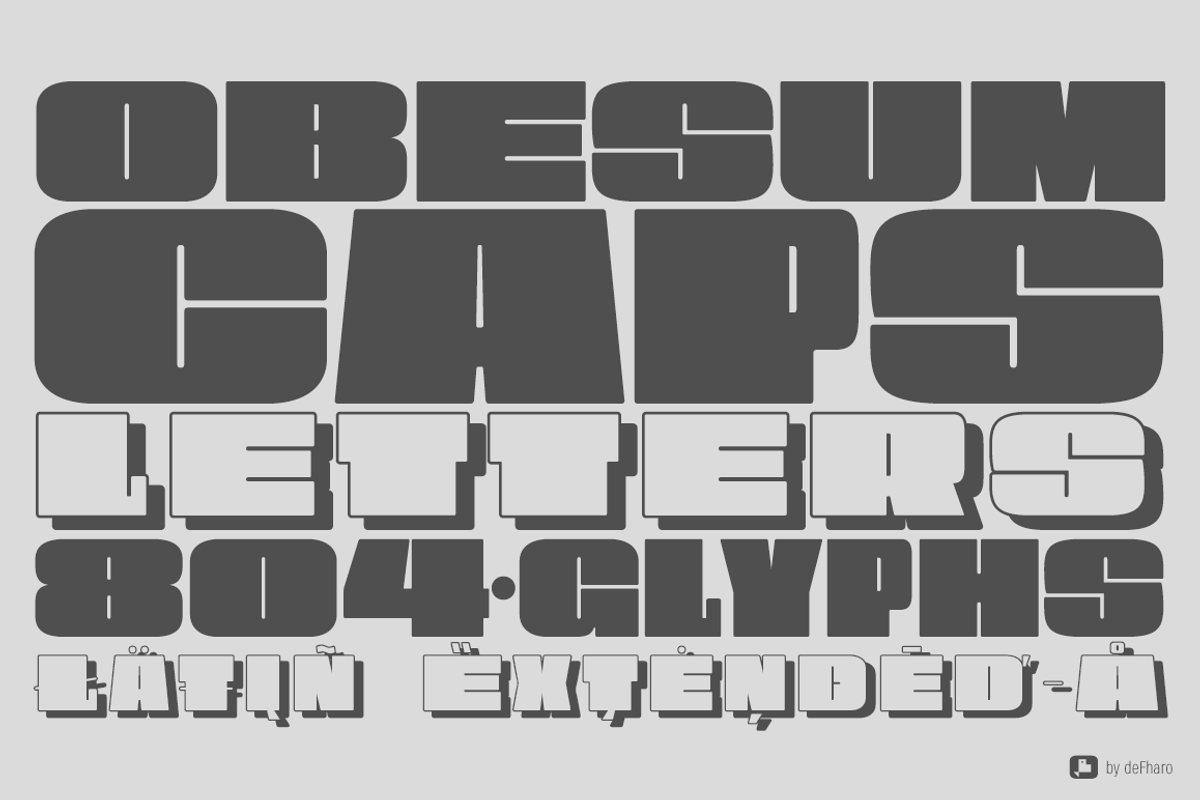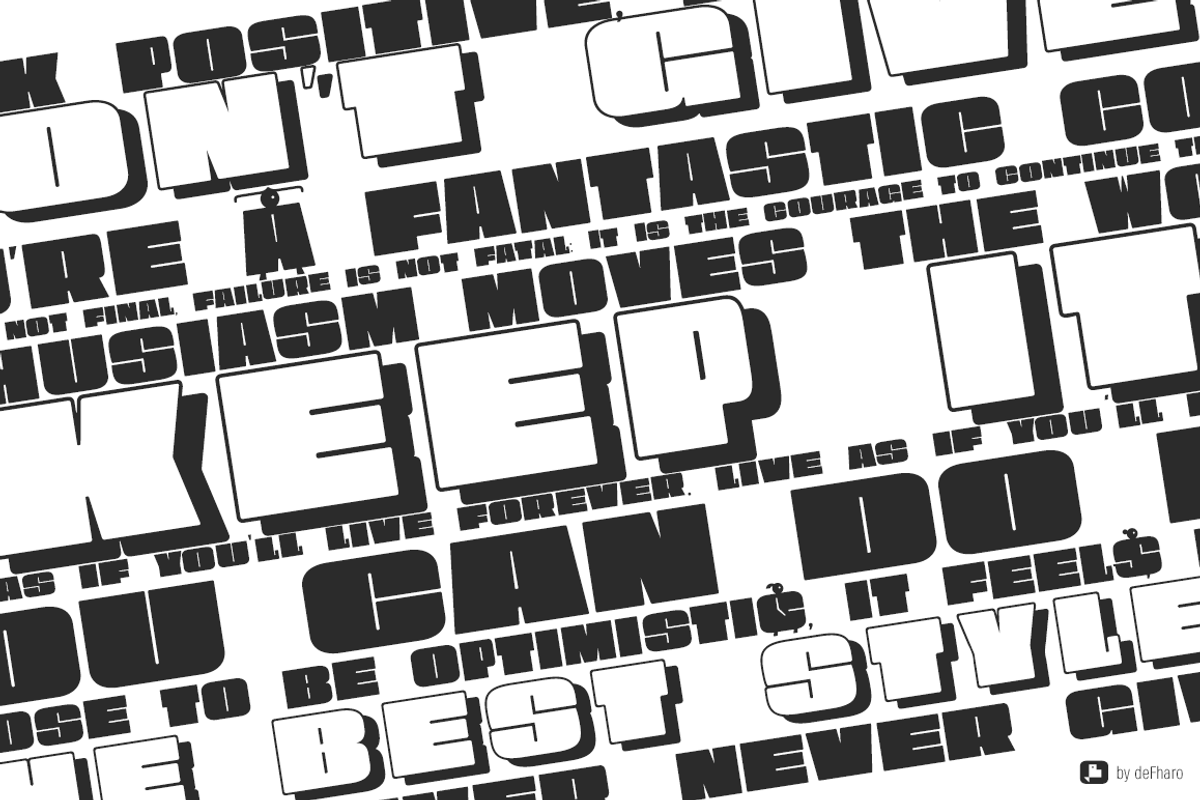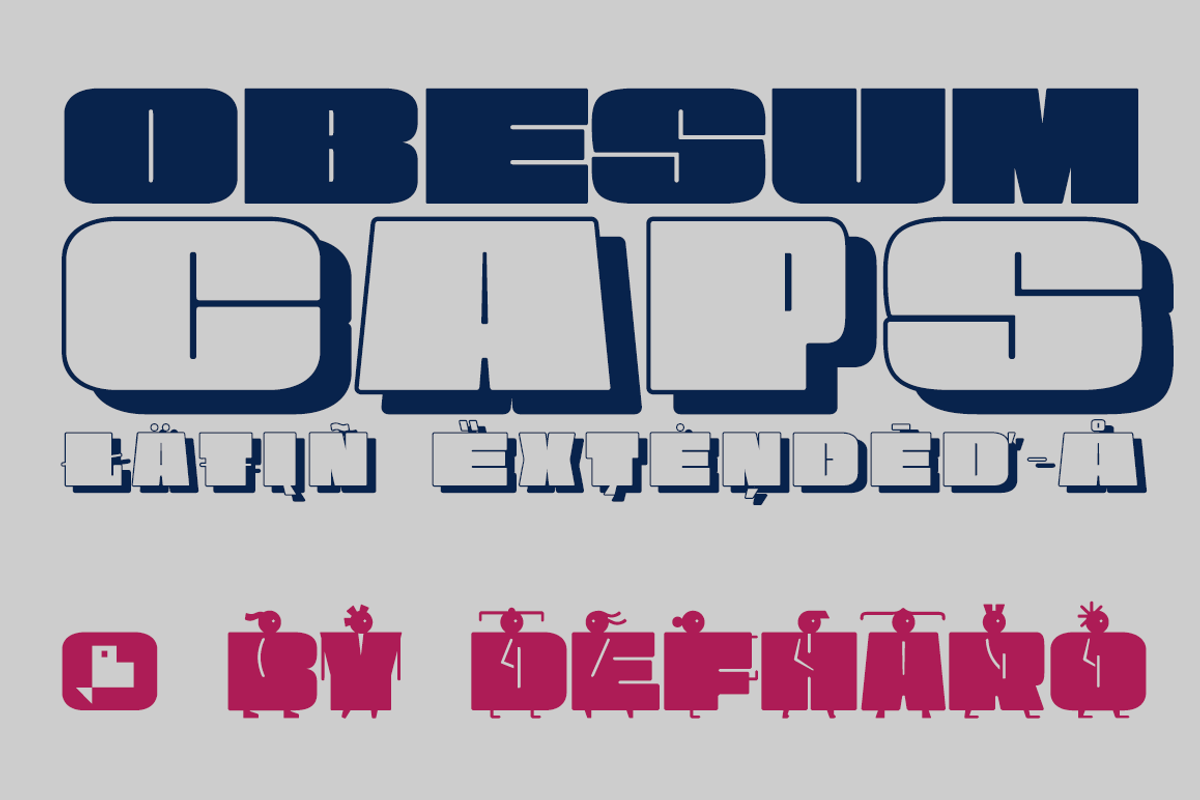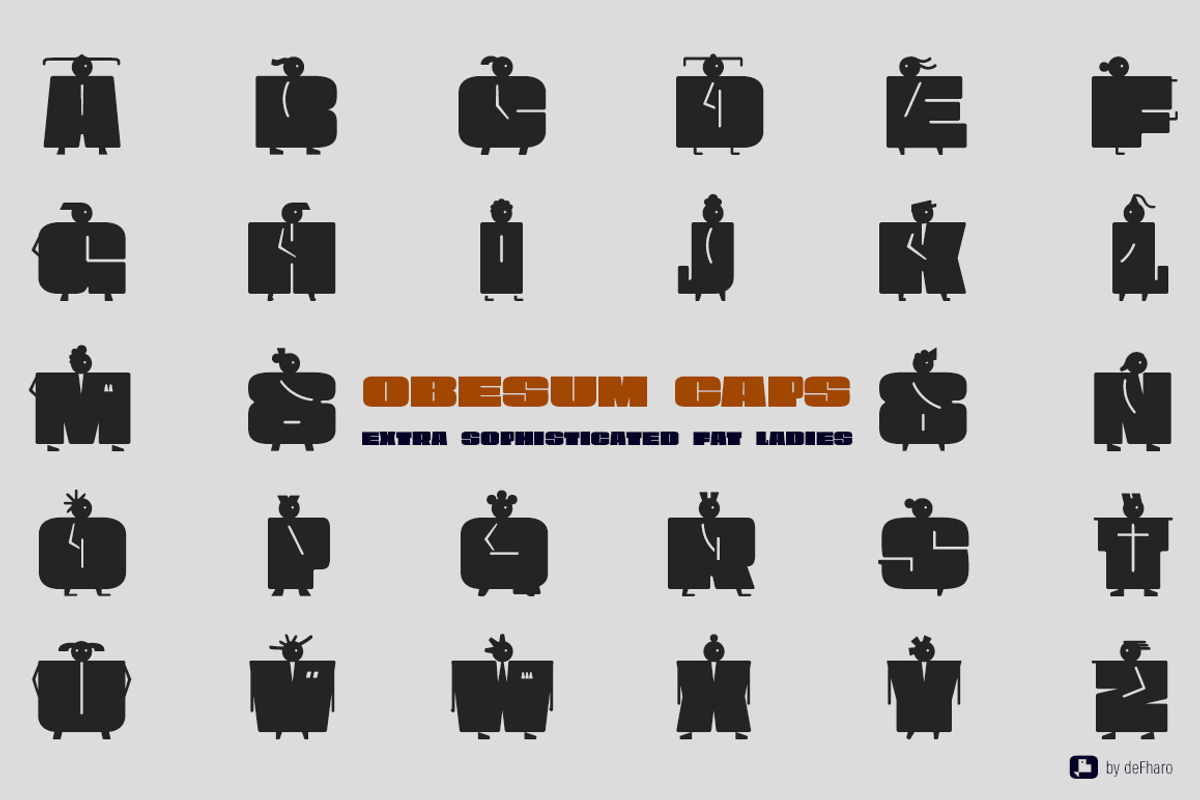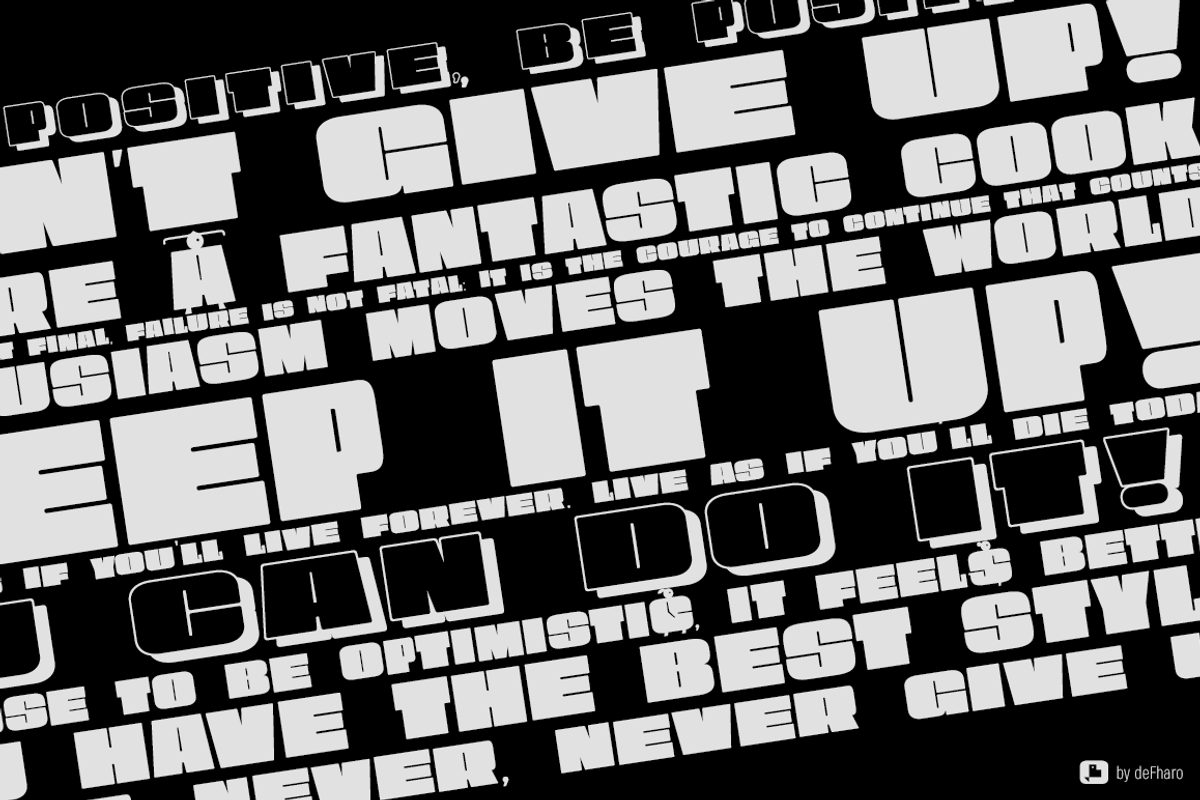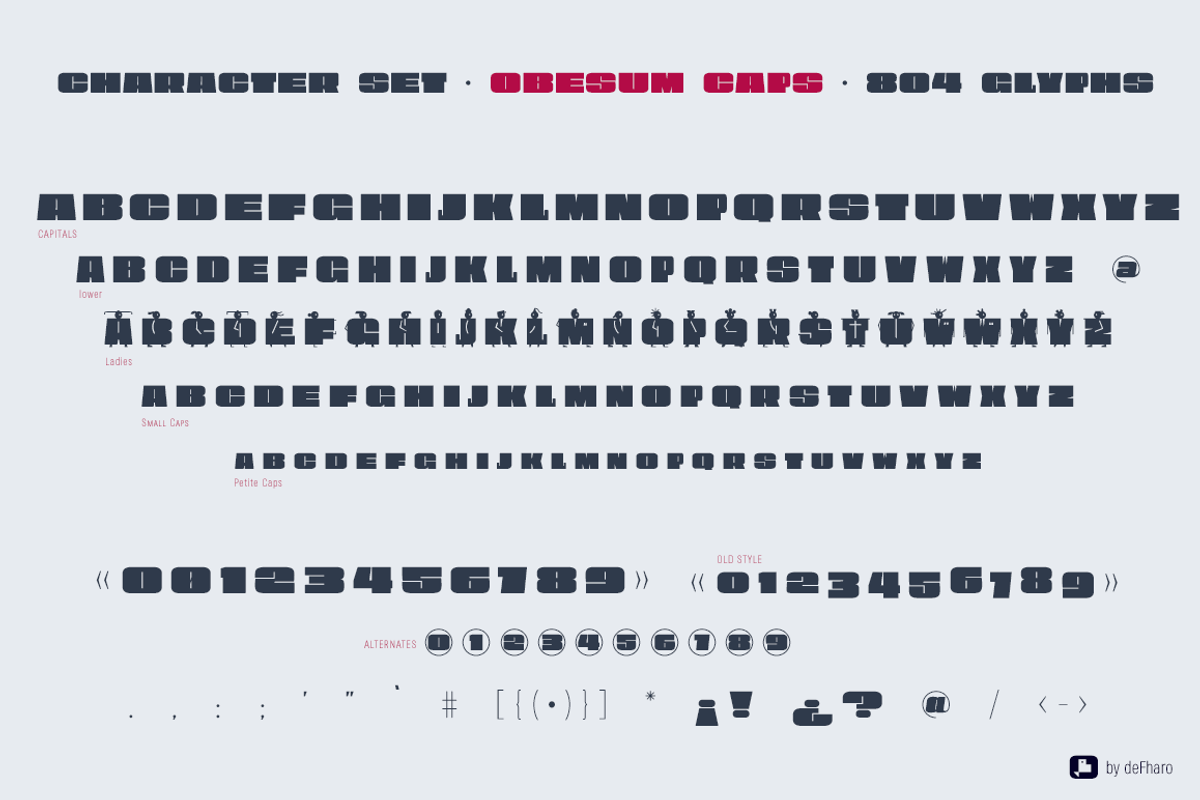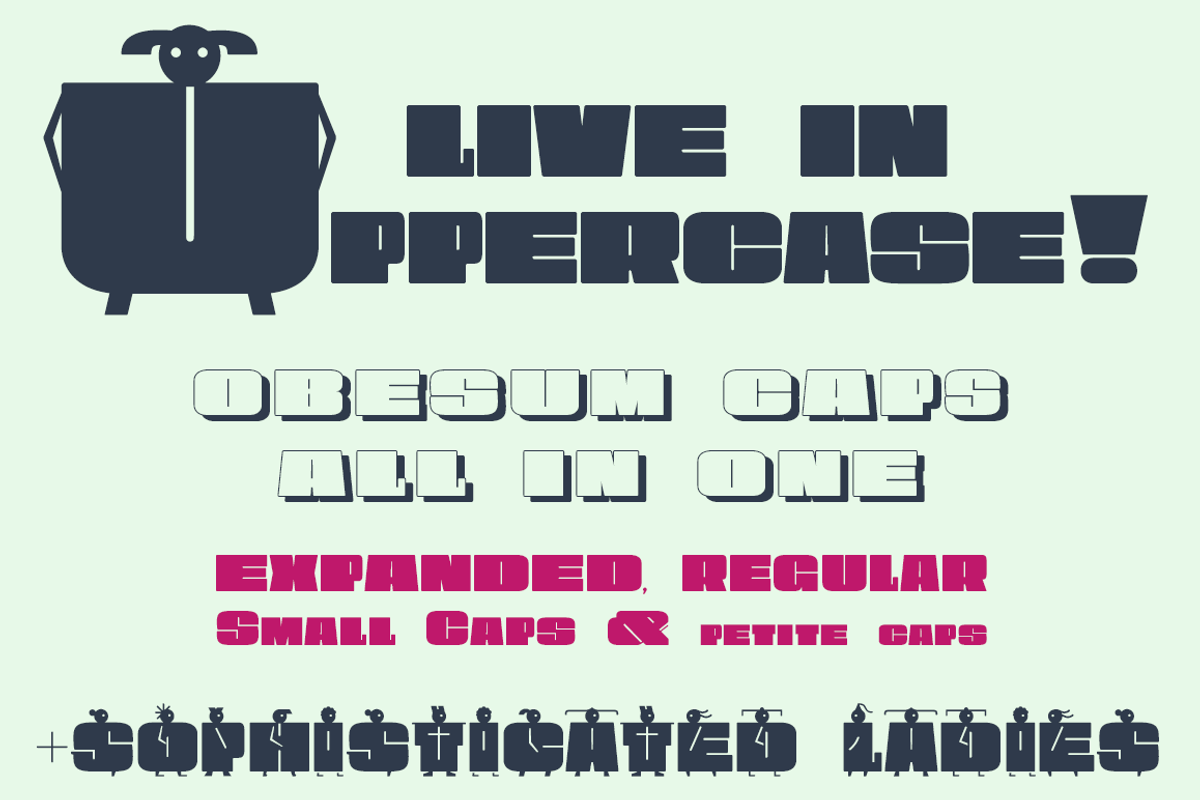
Obesum Caps -2 fonts-
Obesum Caps is a very thick geometric display typeface with great contrast in the counterforms, it is made in homage to the capital letters and obese girls.
The font has five sets of uppercase letters: Capital letters are extended, lower case letters are more squares, and there is a version in small caps of a semi-expanded proportion, all of them with idiomatic support for Latin Extended-A, in addition to the standard alphabet and numbers in small size for the positions: Inferior, Denominator, Numerator and Superior, the letters and numbers have support for dynamic fractions and ordinals, besides the numbers have 3 different set: The normal numbering extended with the height of the capitals, old numbers to use with the small caps version of the letters and that have the height of the x and finally a third version of numbers for annotations.
I have enjoyed the forms and counterforms of this typeface so much that I have drawn an alternate alphabet to the tiny letters with figures of very sophisticated obese girls that are going to party, I hope you like it.
Obesum Caps. Regular & Shadow (2 fonts)
Obesum Caps includes the symbol of Bitcoin and currency symbols.